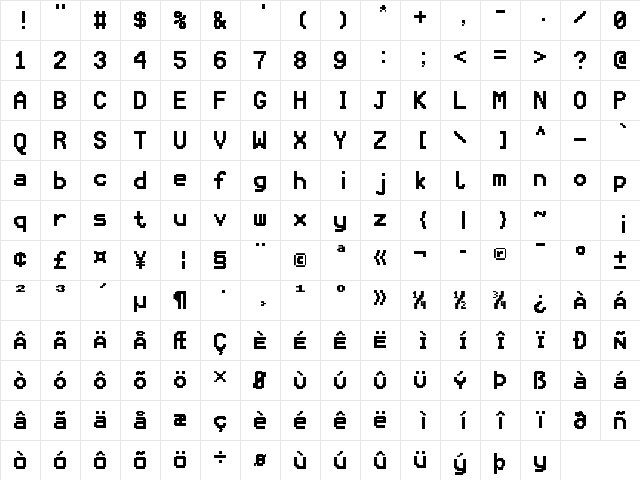
Unicode 8x12 Regular
Design Context for Unicode 8x12 Typeface
Unicode 8x12 brings the precise, column-aligned rhythm of monospaced typography to designs that value technical clarity and systematic order.
Pro Tip: Pair Unicode 8x12 with a proportional sans for UI contexts where code-style labels and regular body copy need to coexist.